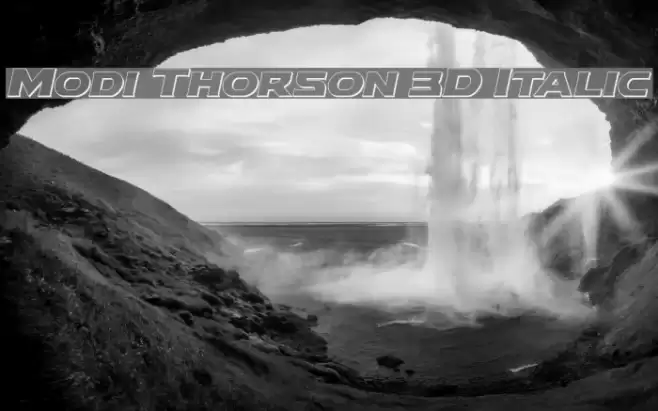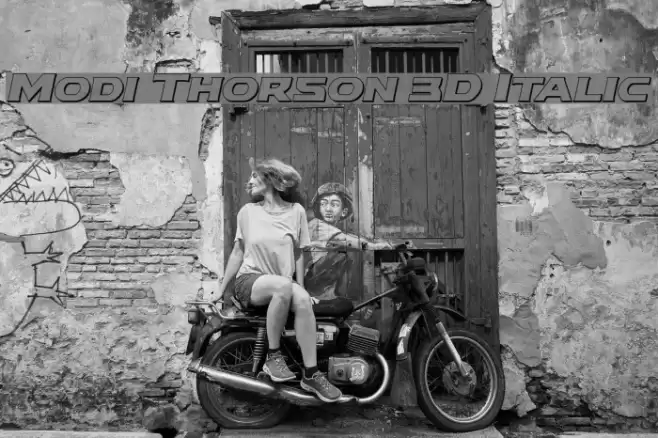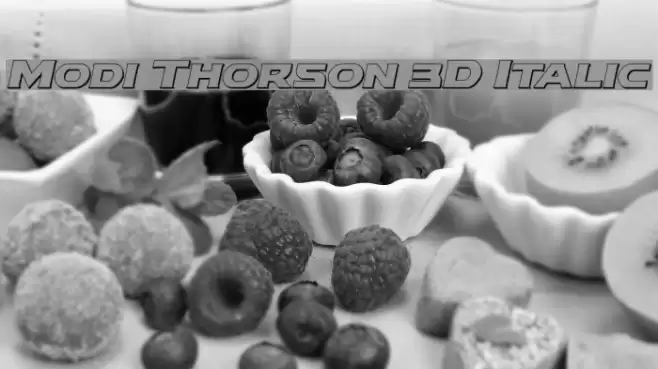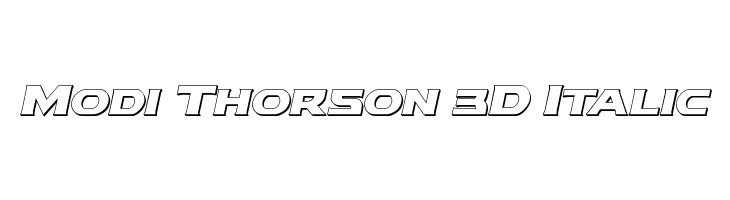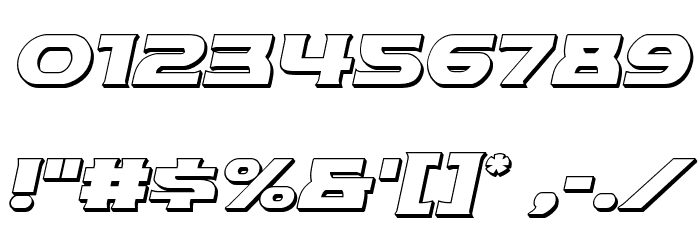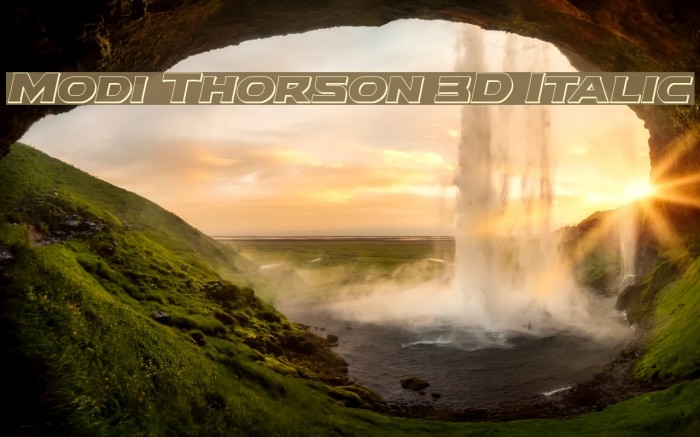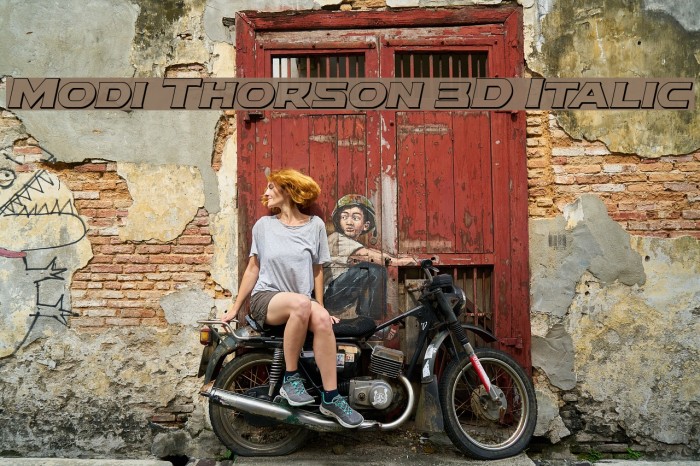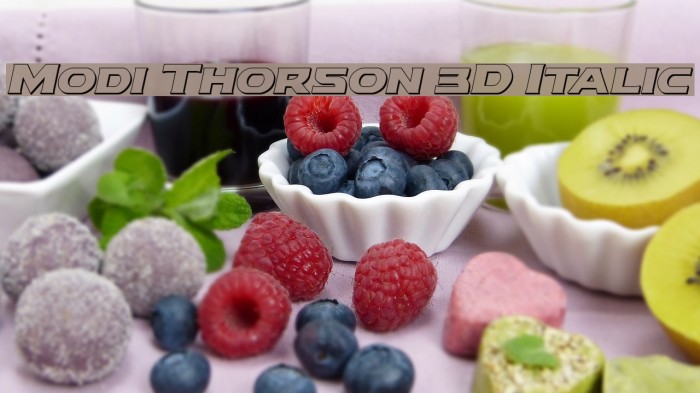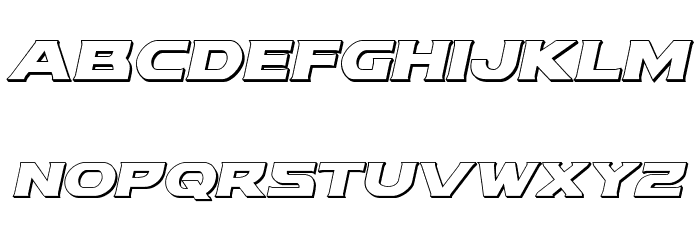
Modi Thorson 3D Italic Font
Modi Thorson 3D Italic Description
This font features a bold, three-dimensional design with an italic slant, giving it a dynamic and futuristic appearance. The characters are outlined, creating a sense of depth and movement. The uppercase letters are particularly striking, with sharp angles and a strong presence. The numbers and special characters maintain the same bold, outlined style, ensuring consistency across all elements. This font is ideal for projects that require a modern and impactful look, such as technology-related branding or sports team logos.
A bold, 3D italic font with outlined characters and a futuristic style from Uncategorized fonts.
- Proposed Projects: Ideal for technology branding, sports logos, video game titles, and dynamic posters.